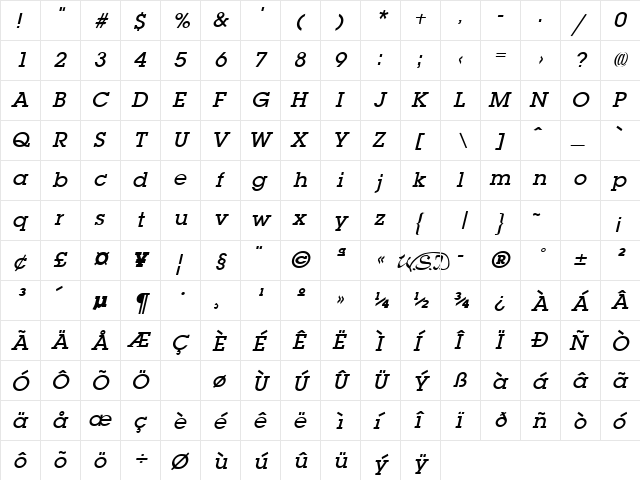
Lapland Demibold Italic
Design Context for Lapland Demibold Typeface
Lapland Demibold offers clean, dependable letterforms without strong stylistic allegiance, making it a practical choice for designers who need flexibility. The slanted form adds forward momentum and visual energy. Its bold stroke weight gives it real presence on the page.
Pro Tip: Use Lapland Demibold for emphasis, pull quotes, and subheadings where its slanted energy can add rhythm to the layout.